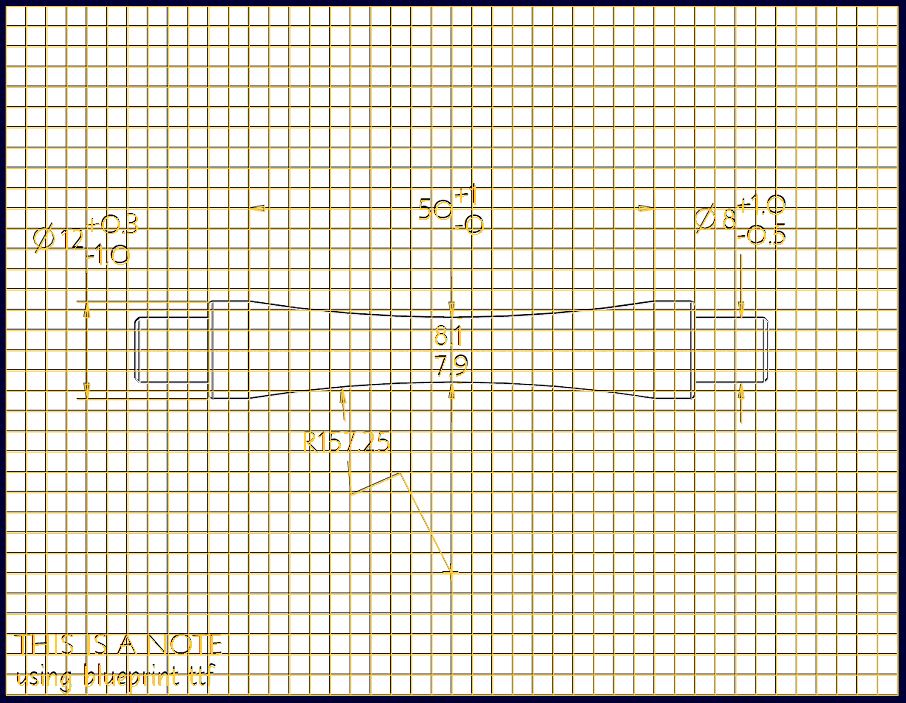
What font are you guys using in dwg mode?
Why is it so hard to find a font made for Engineering dwgs? I want a totally circular "O", and a zero with a line thru it. I want a 1 with the little "flag" on top, I want capital "i" to look like a Roman numeral, and I want the capital "L" to have the foot on it. We recently made a change to our font to: "iso30985font", and it's better than the "Font" text for sure, but I'd still lie to have the capital "i" look like a Roman numeral. I mean, in most fonts, you can't tell the difference between a lower-case "L" and a one and an upper-case "i".
Why does this seem to be such a difficult thing?
What are you guys using?
I definitely fell your pain on this one. For a while I was experimenting with many of the different fonts, but I could never find one that I really fell in love with. I can usually find a font that I initially like better than the default "Font" font, but I always find shortcomings the more I use them. I was using CG Triumvirate for a while and didn't hate it, but eventually stopped using it. You wouldn't like it due to it not having the Roman numeral style capital "i". Alas, I'm back to using the default font and suppressing the urge to vomit every time I make a drawing.
I usually frown upon comparing features of different CAD programs and CAD programs in general, and I sincerely hope I don't derail this thread by doing so... but... I've always felt that Solidworks did an amazing job with their drawings package as a whole, very much including their default font. Every time I'm in the shop, I can pick out the drawings made with Solidworks and the ones made with ProE/Creo instantly. Anyone know what they use?
I too prefer the ISO30985font. I am just not liking the way Creo treats TTF on the drawings. the only other thing I do is add thickness of .012 to the ISO font to help it stand out in PDF plots.
If you really want to go back to the "source" you would look at the Leroy lettering templates. These do not have the little features you are seeking either so they are technically not "required" although ISO does address these better.
The "O" and "0" issue is commonly resolved with width. The "O" is typically -rounder- when compared to "known" zeroes. The upper case I (eye) and lover case l is always an issue without serifs. In the past, drawings used only upper case and special cases were created for the use of "i" such as not using them in revisions. As for the 1's, this one is a no brainer... it should have the small tick on the top in my opinion even if Leroy doesn't agree.
And have a look at ISOCTEUR and ISOCPEUR in your windows character map. It seems pretty close by delineating the lower case L with a small hook and O's are blocky while zero's are oval.
Default Font for most and Filled for some things in title block. I agree with you that zeros should have slash,
"Z"s and sevens should be crossed. And the things with "I" and "l" (do you know which one is which - they are different).
Do you still skip using "i" and "O" and "Q" in on revision levels?
Yep.
It seems the dotted or slashed zero's came from the advent of computer terminals when the screens resolution was limited. I found only 4 fonts in Windows 7 that does this:
8514OEM
CONSOLAS
FIXEDSYS
TERMINAL
(and one that was an artist font not worth listing here)
...several of which is low-rez friendly. You will also see that limited serifs are deployed for the i-L issues.
ISOCPEUR.ttf looks very similar to AutoCAD's isocp2.shx.
But in case of PDF's coming from Pro/E, there are always special characters, that will come out as a mess, if you use a *.ttf font.
It's a battle that can't be won.
On Pro/E *.ndx fonts you can apply the text_thickness in *.dtl options file, on TTF fonts applying thickness is not possible.
I did a little investigation on this today.
I stumbled across a PDF folder under the TTF folder. This got me thinking. The PDF folder is full of odd files none of which are purely TTF files. These must be conversion compensation files of sorts.
TTF_Study_I.png
My 1st test was to use one of the default fonts... bluprnt.ttf (nice architectural font!). What Jakub said about thickness not affecting TTF is true. In the case of this font, the aspect ration too is unaffected. Height is affected (obviously). However, when you use symbols (diameter symbol below) the system reverts back to the default symbol library and thickness config setting does affect these.
In the case of bluprnt.ttf at least, it seems a WYSIWYG conversion.
Interesting. I guess I just fail to understand why PTC can't make the font work on screen the way it should. It shouldn't be hard. But, of course, we STILL have to deal with the fact that text on a dwg is just a "box" when we try and manipulate it, vs AutoCAd showing us the actual text........